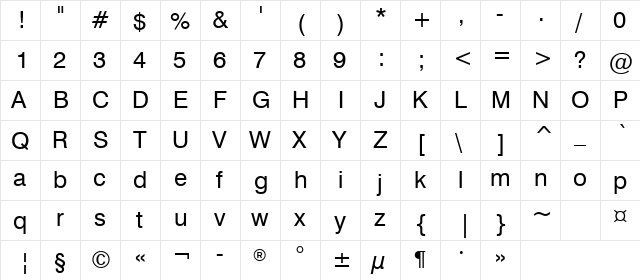
Swis721Cyrillic BT Roman
Design Context for Swis721Cyrillic BT Typeface
Swis721Cyrillic BT offers clean, dependable letterforms without strong stylistic allegiance, making it a practical choice for designers who need flexibility.